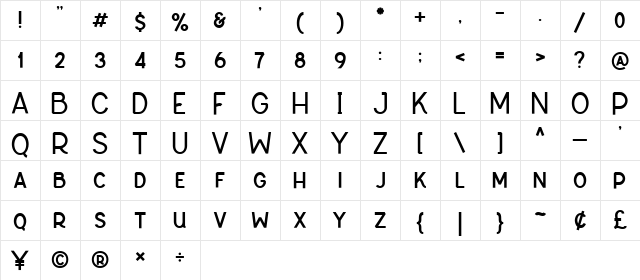
Erabura Regular
| Foundry | Tacikworks |
| Designer | Tacikworks |
Design Context for Erabura Typeface
Erabura takes a measured approach to typography — its balanced proportions and neutral character make it a reliable workhorse for both digital and print work.